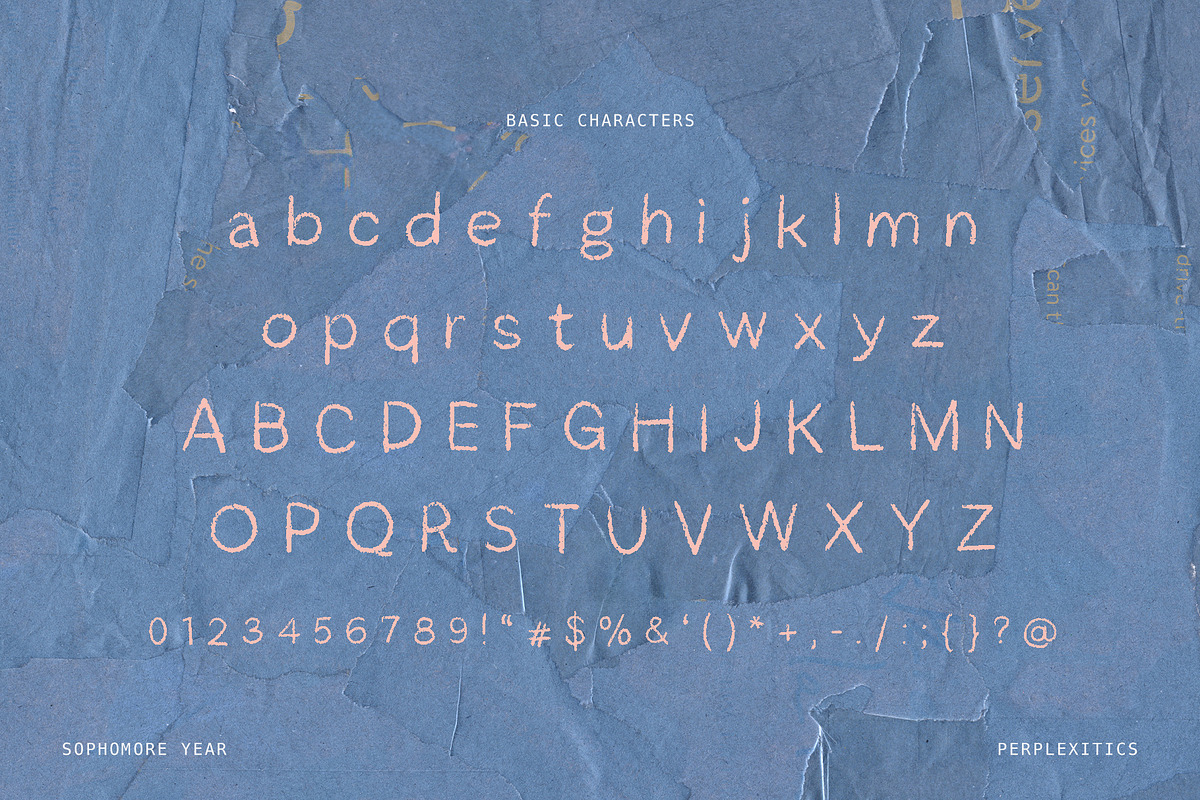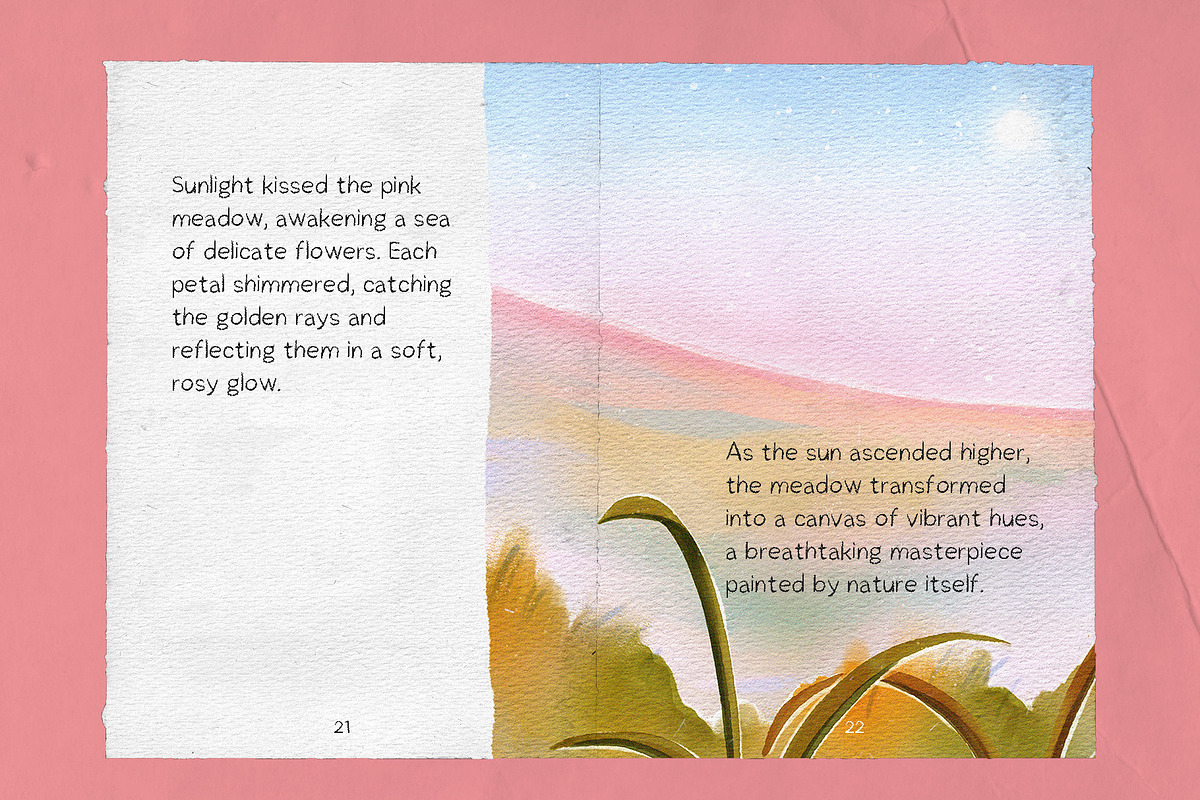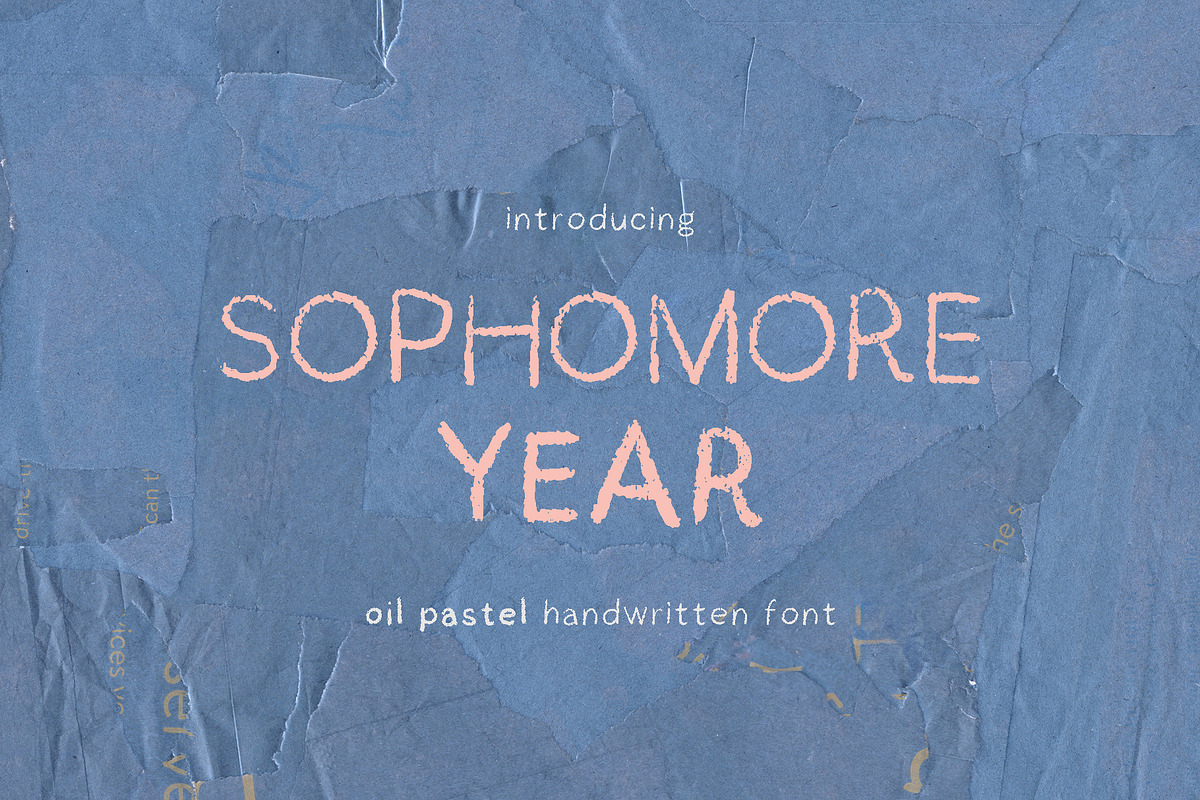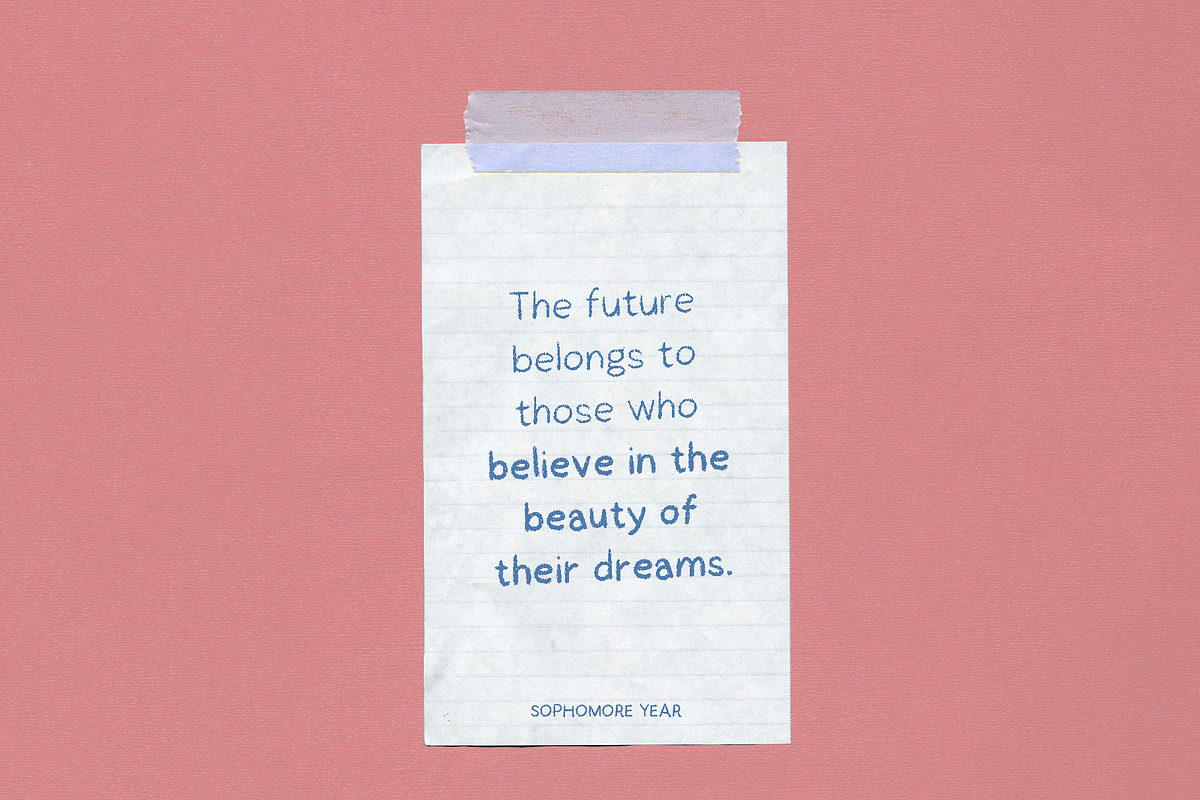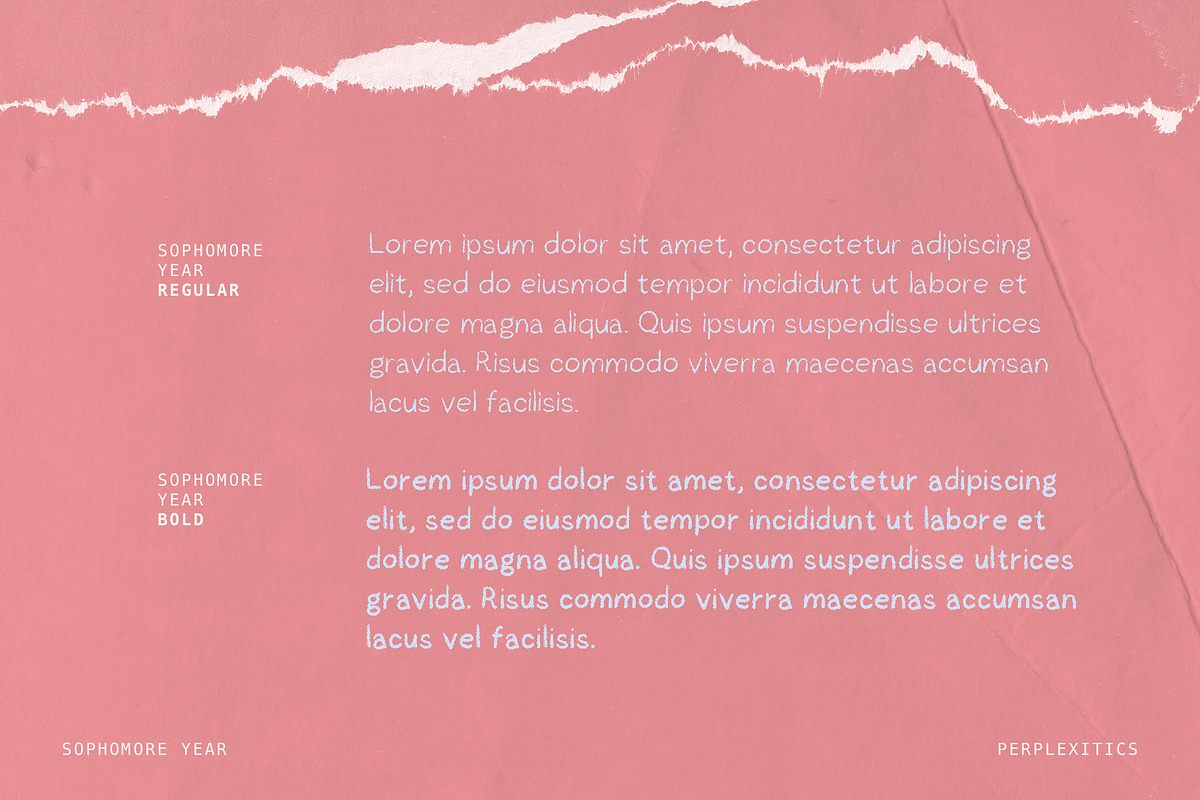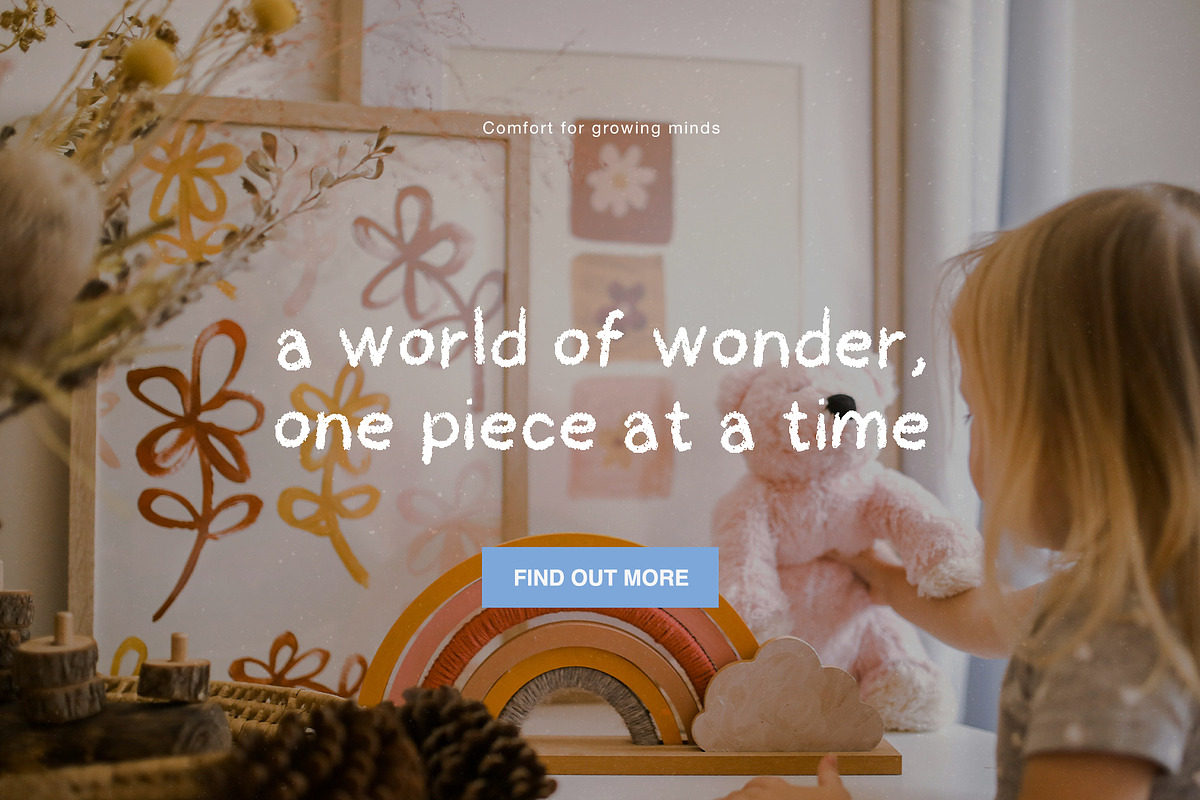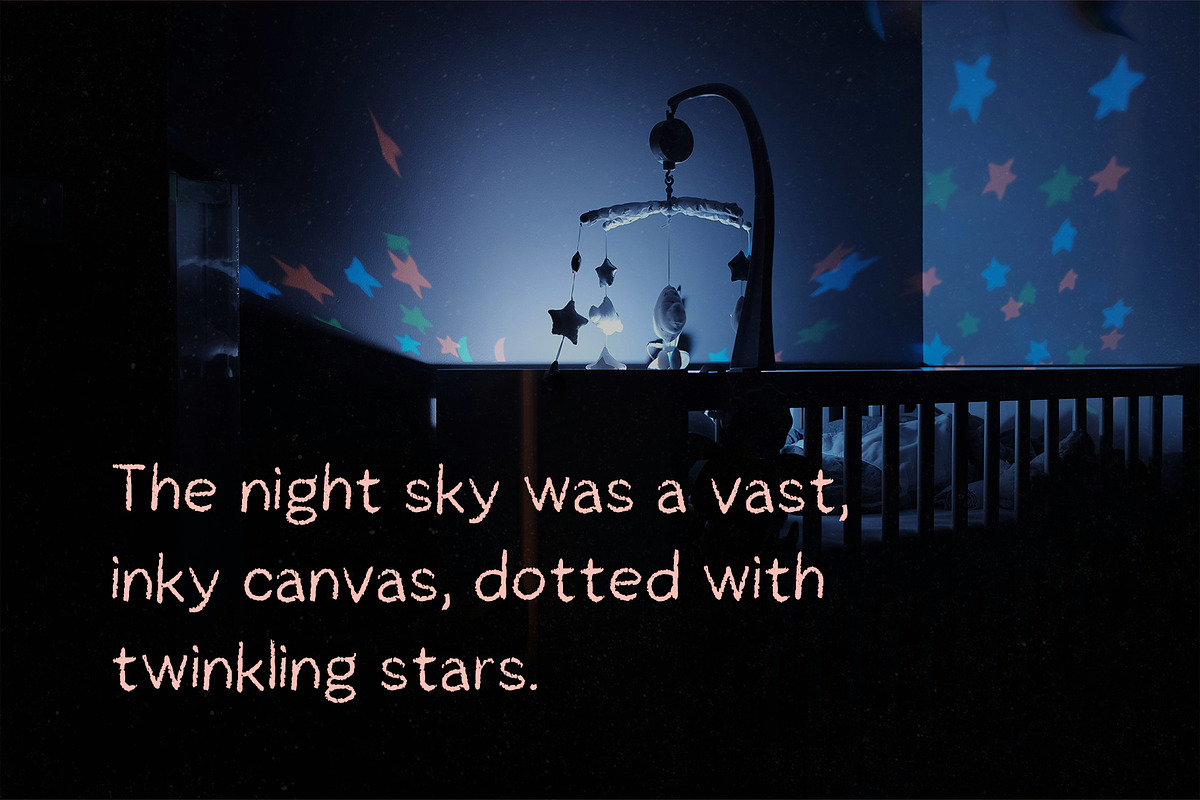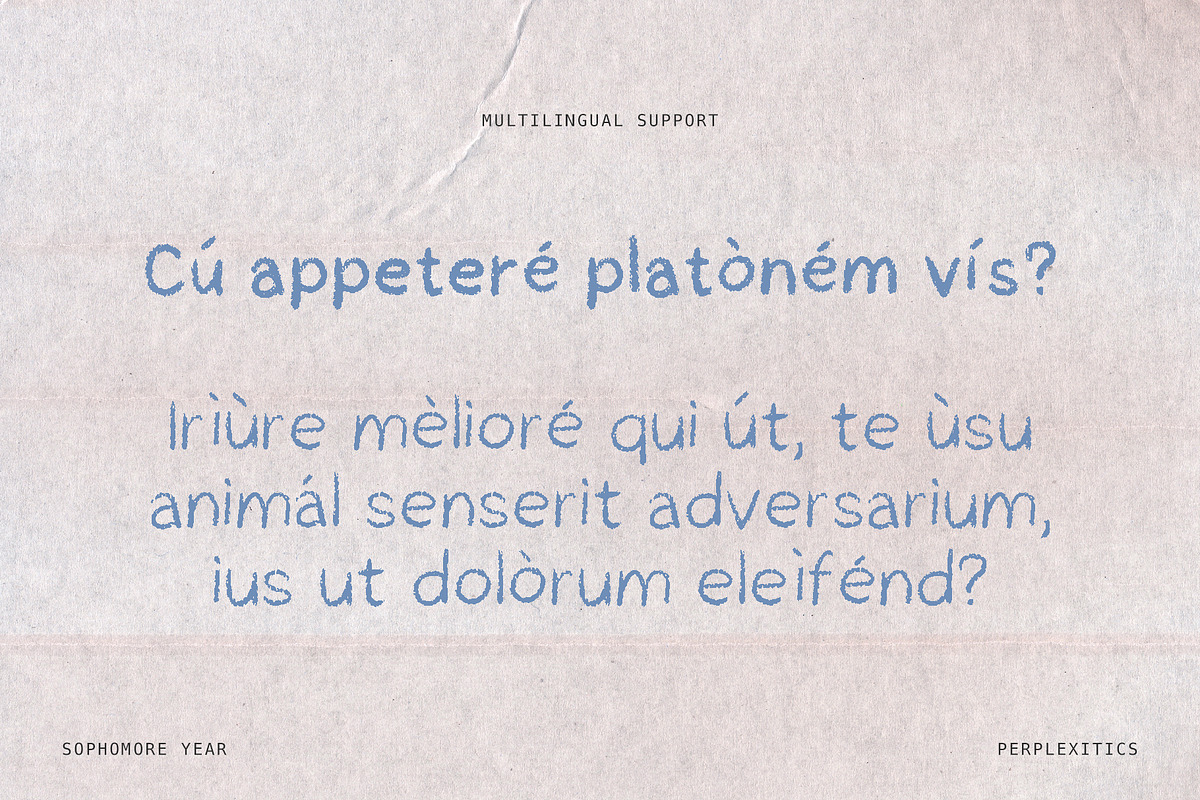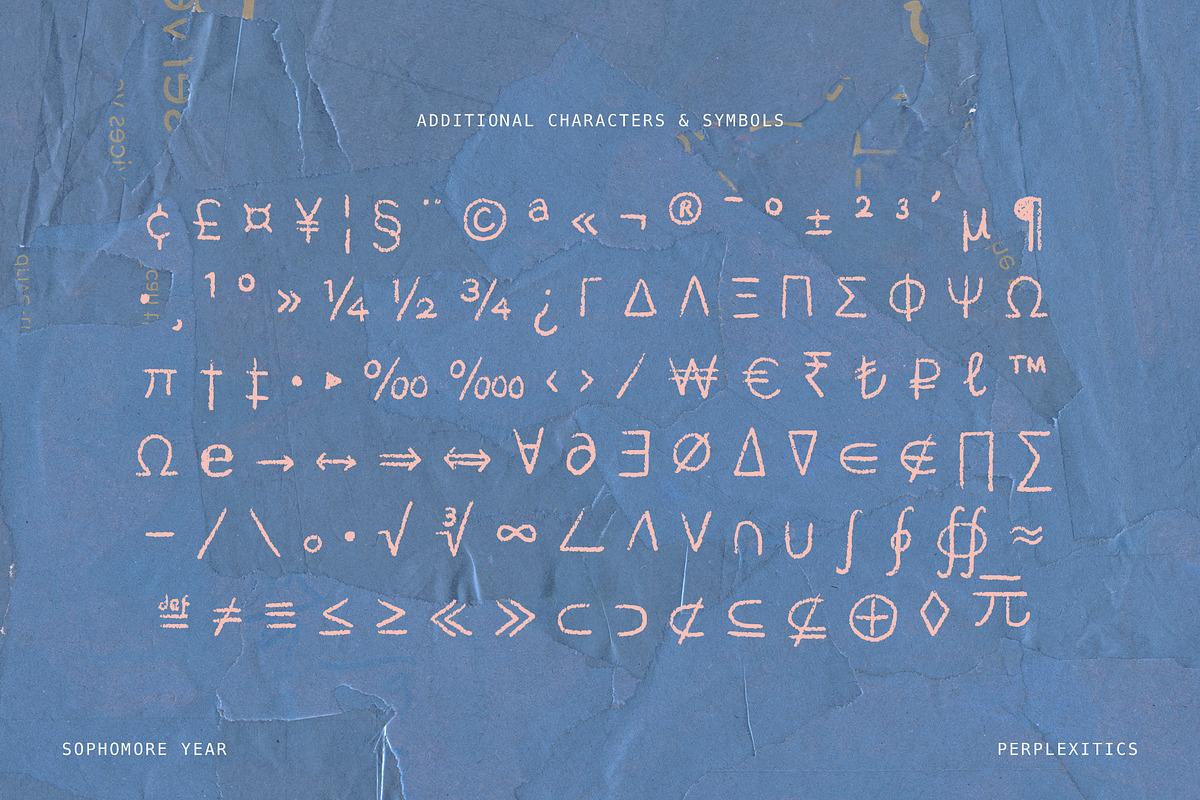
Oil Pastel Font Sophomore Year
Sophomore Year is a vibrant and playful handwritten font inspired by the nostalgic charm of oil pastel drawings. Its textured strokes and imperfect curves evoke the carefree spirit of youth, making it perfect for designs that capture a sense of fun and creativity.
Sophomore Year Typeface is packed with everything you need, including uppercase and lowercase letters, numbers, and punctuation. Multilingual support.